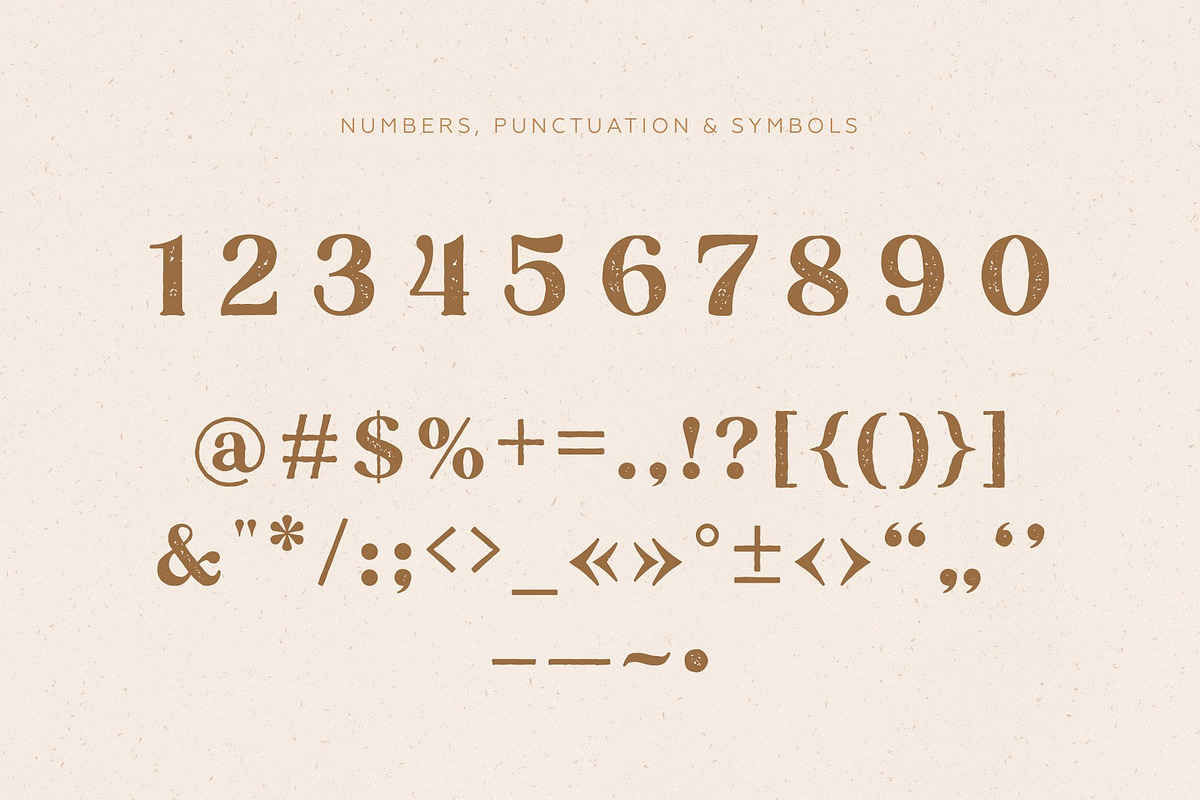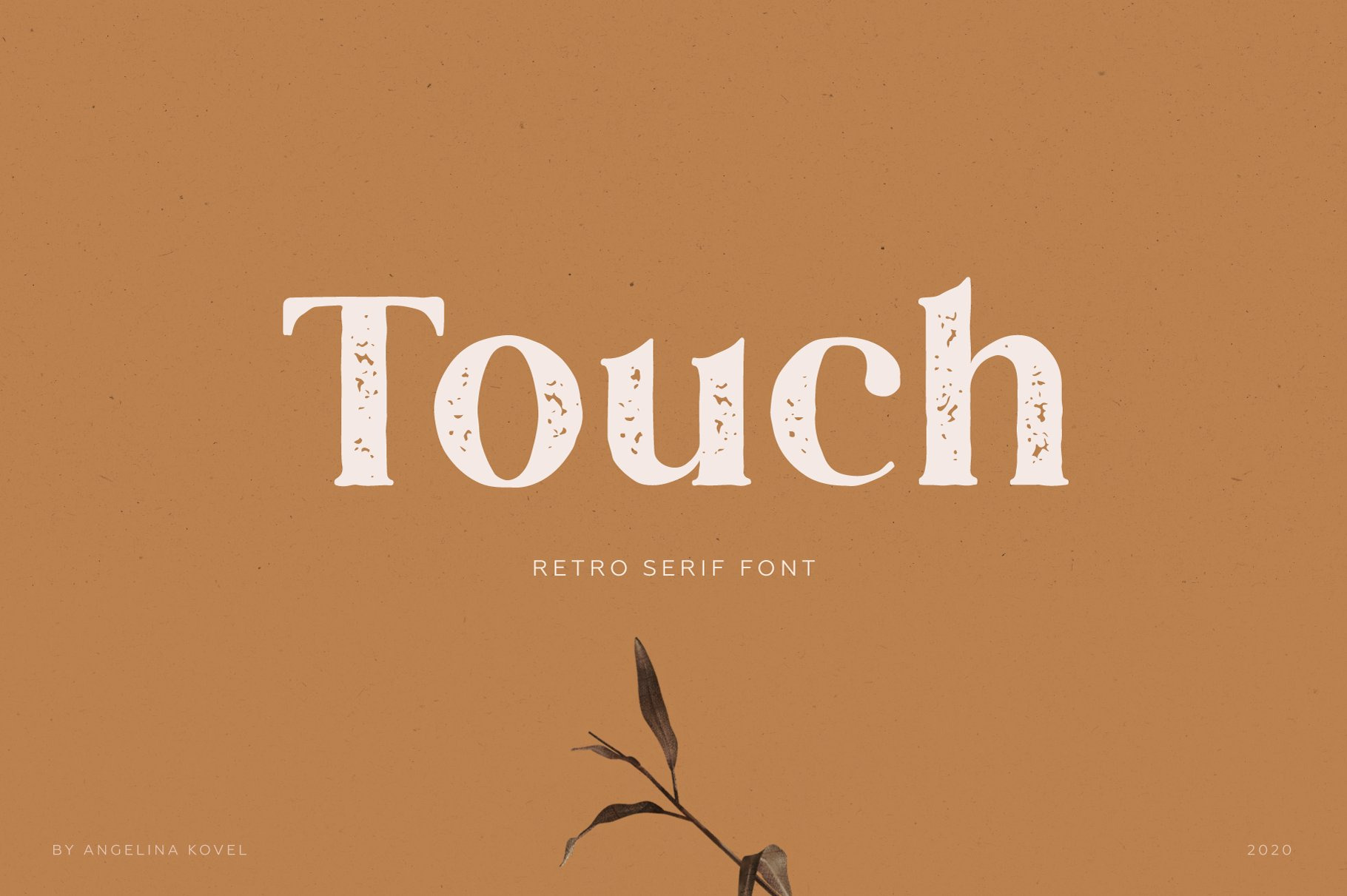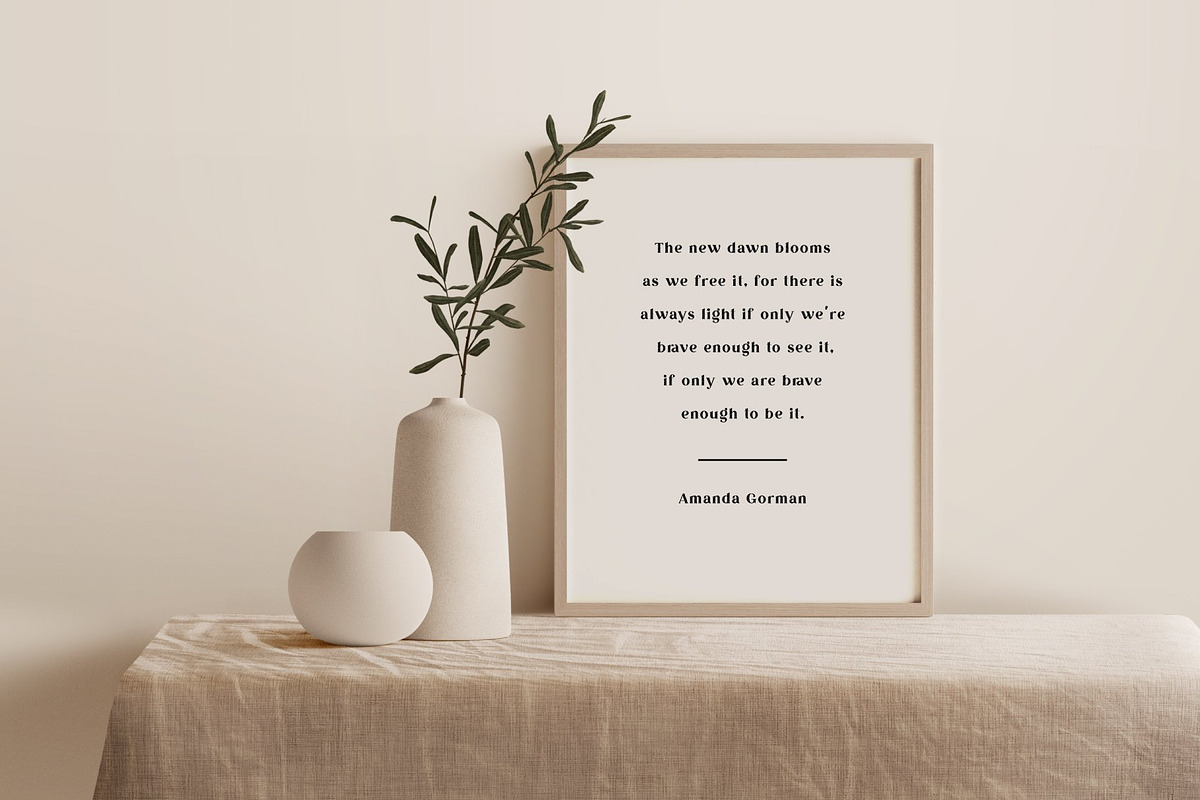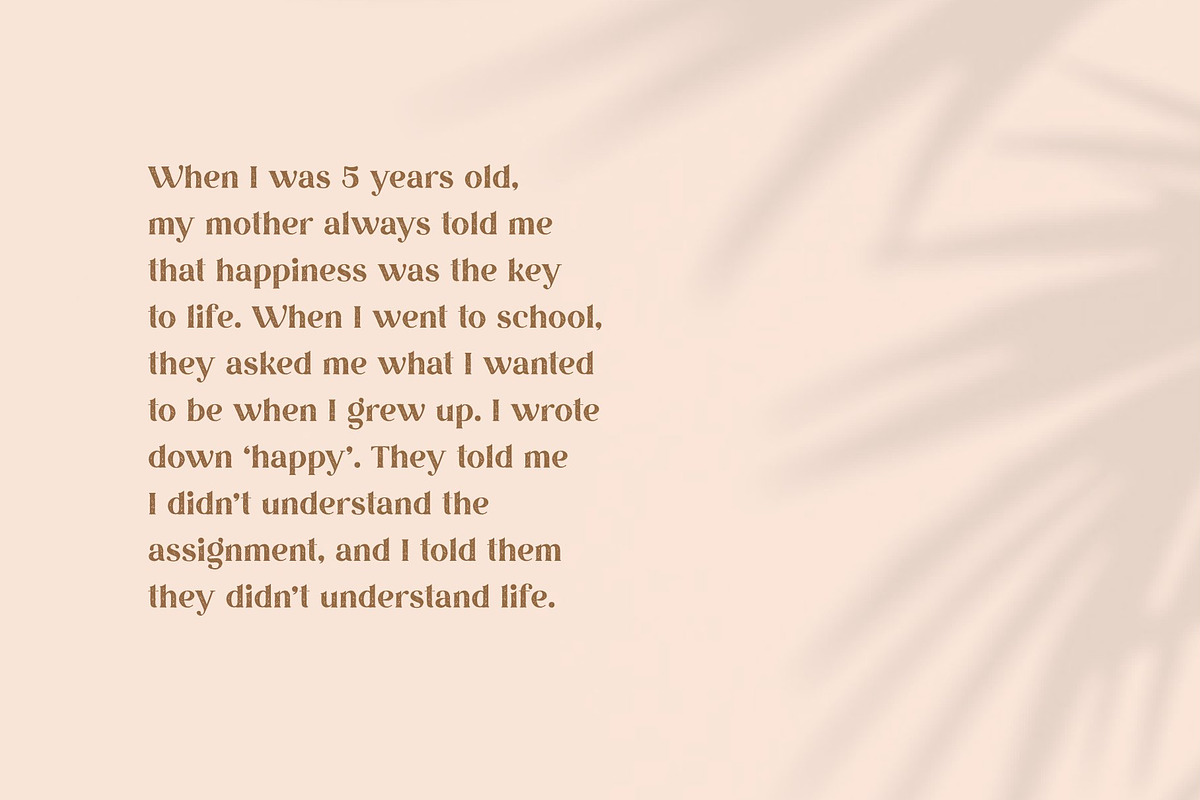
Touch | Serif Font
Hello! I'm very happy to present my font Touch! Touch will perfect for many project: fashion, magazines, logo, branding, photography, invitations, wedding invitation, quotes, blog header, poster, advertisements, postcard, book, websites, etc.
- Upper + lowercase letters
- Numbers + punctuation